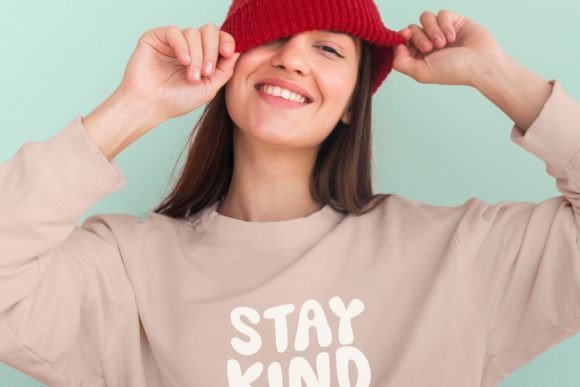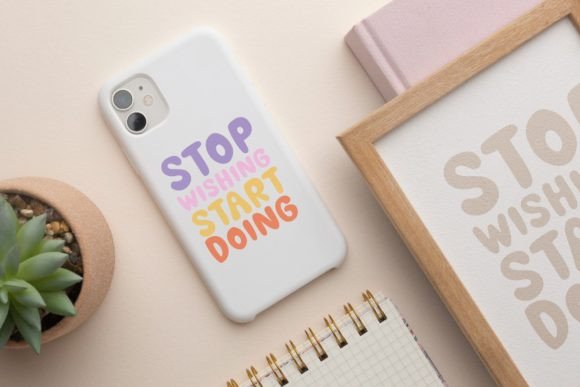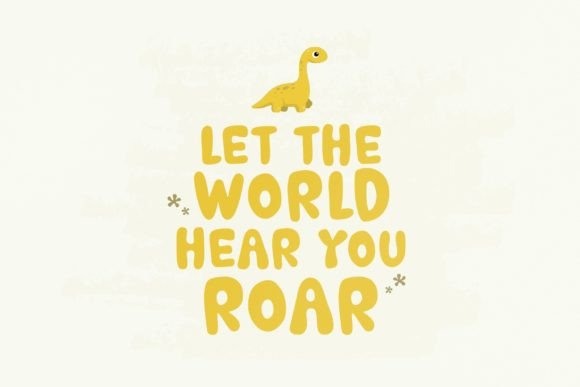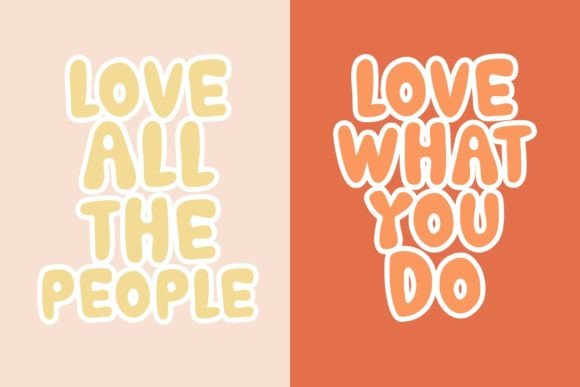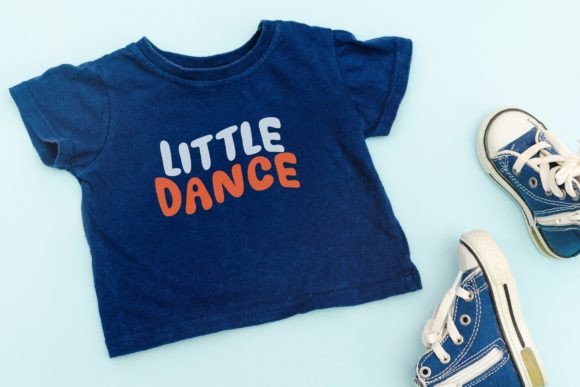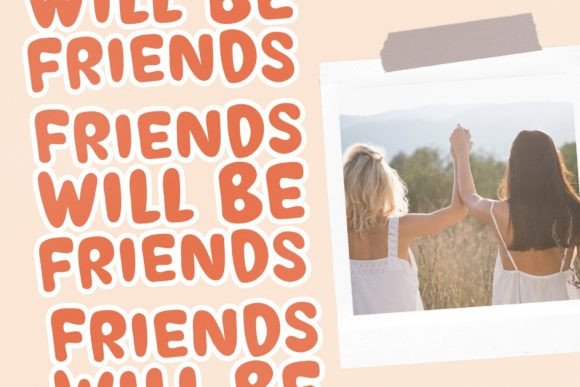
Unlock the Magic of Bigger Summer Fest Font
Have you ever stumbled upon a design that just makes you feel like anything is possible? Maybe it was a beautiful logo, a stunning book cover, or a captivating movie title. Whatever it was, it sparked something within you, and you couldn’t help but feel inspired. For designers, these moments are the result of hard work, creativity, and the right tools – like the perfect font.
Enter the Bigger Summer Fest Font, a bubbly handwritten font that’s perfect for adding a touch of elegance and luxury to your designs. Whether you’re working on a logo, a book or movie title, a fashion brand, or a magazine, this font is sure to bring your vision to life. And with its modern look and unique style, it’s a valuable addition to any designer’s toolkit.
Bigger Summer Fest Font Key Features
- Font Family: Bigger Summer Fest Font is a custom-designed font, specifically created for the summer festival theme.
- Unique Characteristics: Features bold, playful, and energetic letterforms with custom-designed swashes and flourishes, perfect for creating eye-catching summer festival branding and graphics.
- Characters and Glyphs: Includes a wide range of characters, including uppercase and lowercase letters, numbers, punctuation marks, and special symbols, making it suitable for various design applications.
Bigger Summer Fest Font Review
Overall, I’d say the “Bigger Summer Fest Font” has some great elements, but also some areas where it falls short. ✨
- Fun, playful vibe: The font definitely captures the carefree spirit of summer and festivals. It’s perfect for designs related to outdoor events, music, or travel.
- Good legibility: Despite its playful nature, the font is still easy to read, especially in larger font sizes.
- Variety of styles: The font comes in different weights and styles, which makes it versatile for various design applications.
- Overused: Unfortunately, the font’s popularity has made it feel a bit overused. You may see it everywhere, which can make it lose its unique charm.
- Limited versatility for formal designs: While the font is great for casual designs, it may not be the best choice for formal or professional projects, as it can come across as too playful.
- Some characters may not be suitable for small font sizes: Some of the font’s characters may not be legible when used in smaller font sizes, which can be a problem for designs where space is limited.
Overall, the “Bigger Summer Fest Font” is a fun and playful choice for designs related to summer and festivals. However, its overuse and limitations make it less suitable for formal or professional projects.
Tips for Getting the Most Out of Bigger Summer Fest Font
Use Bigger Summer Fest Font to add a fun and playful touch to your designs.
Pair it with bright colors and bold graphics to create a lively atmosphere.
Bigger Summer Fest Font is perfect for:
Summer-themed designs, such as beach party invitations or outdoor event promotions.
Music festival posters or social media graphics.
Summer-themed advertisements or marketing materials.